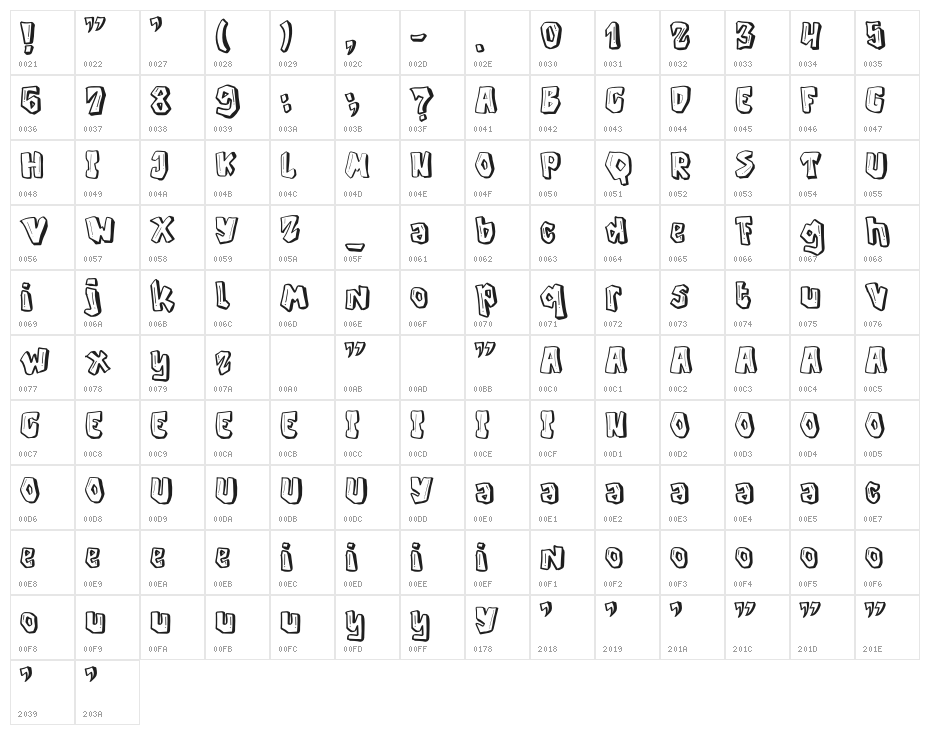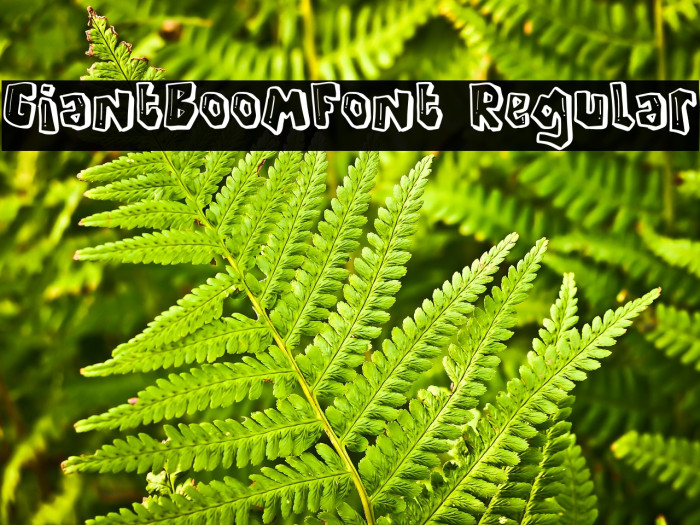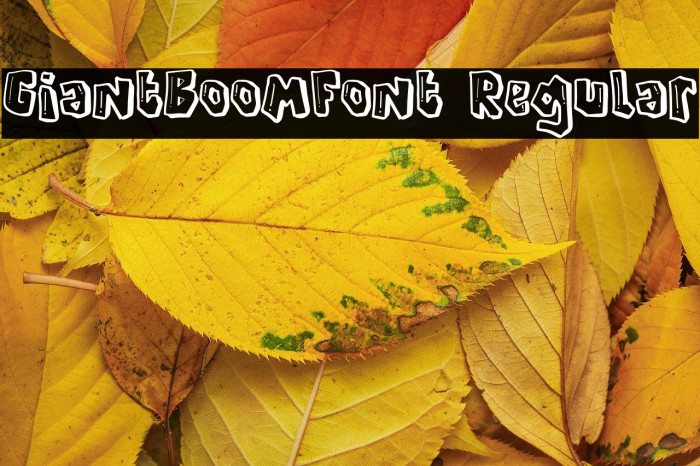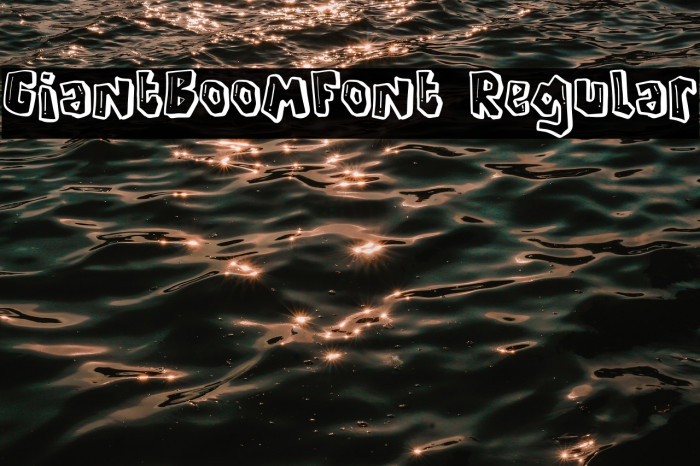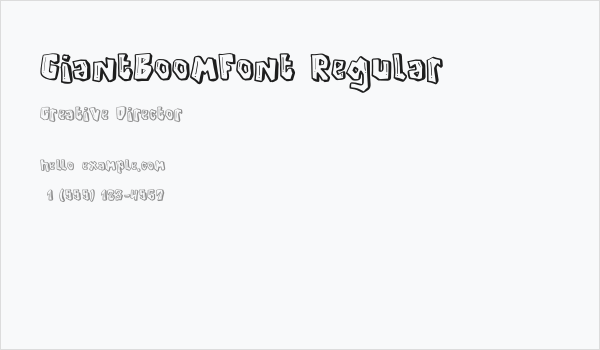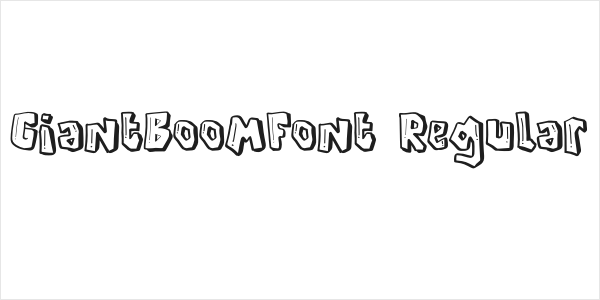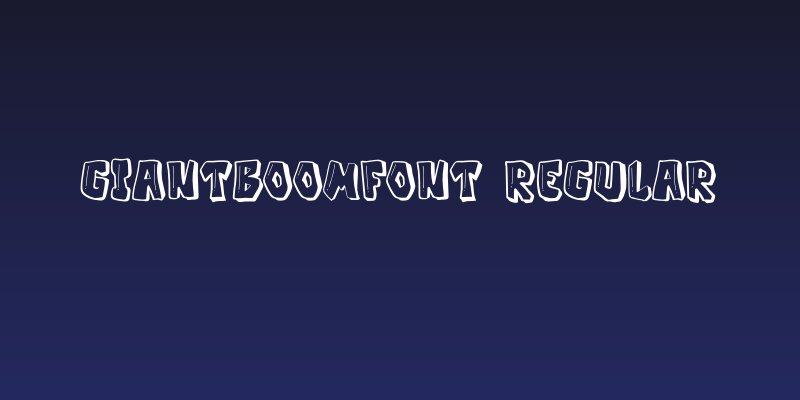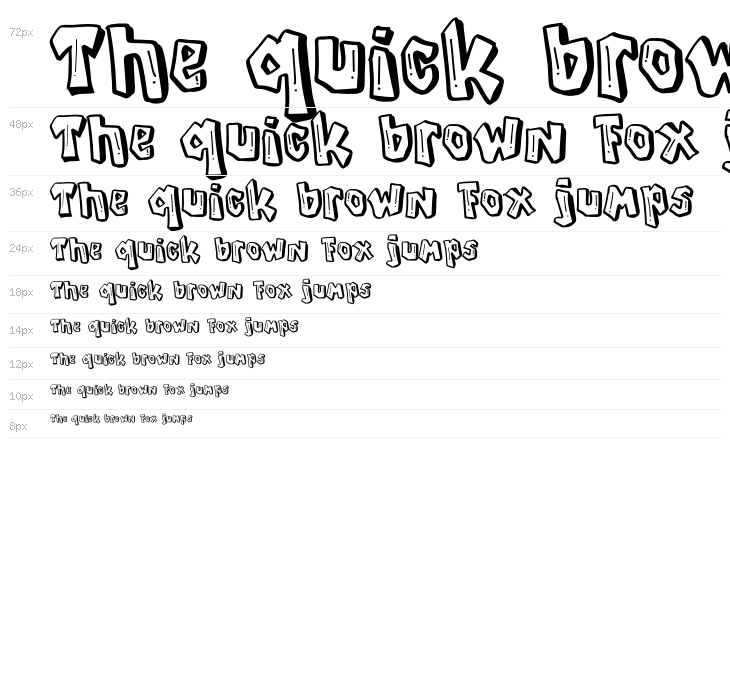
GiantBoomFont Regular Font
| Stile generale | Playful, Artistic, Energetic |
| Caso d'uso | Headlines, Posters, Branding |
| Progetti proposti | Ideal for comic books, children's books, posters, and playful branding. |